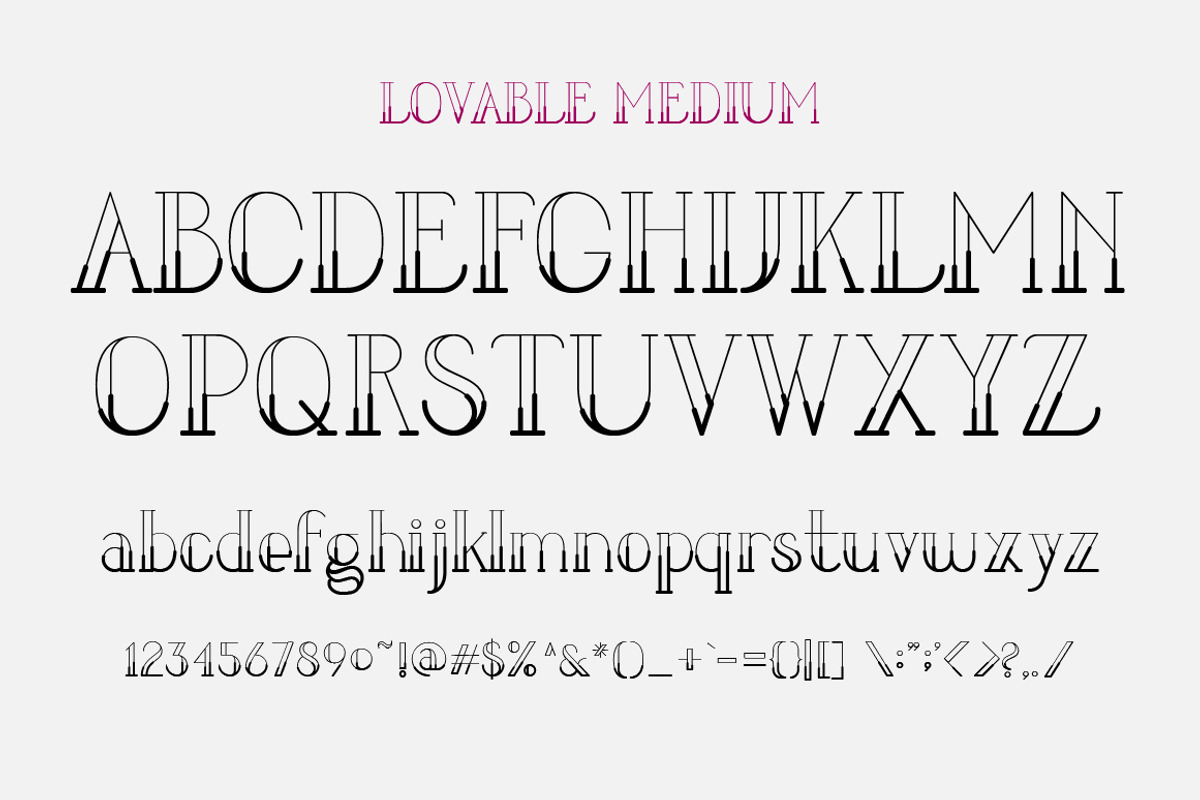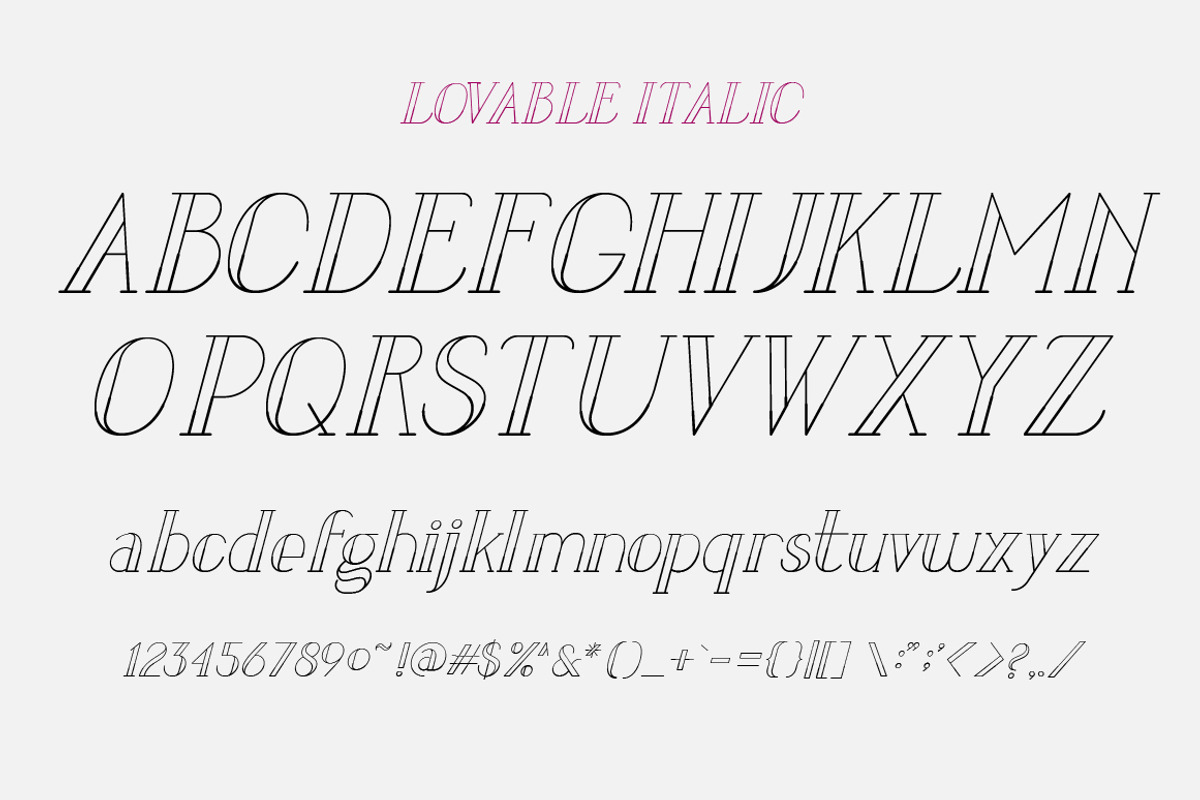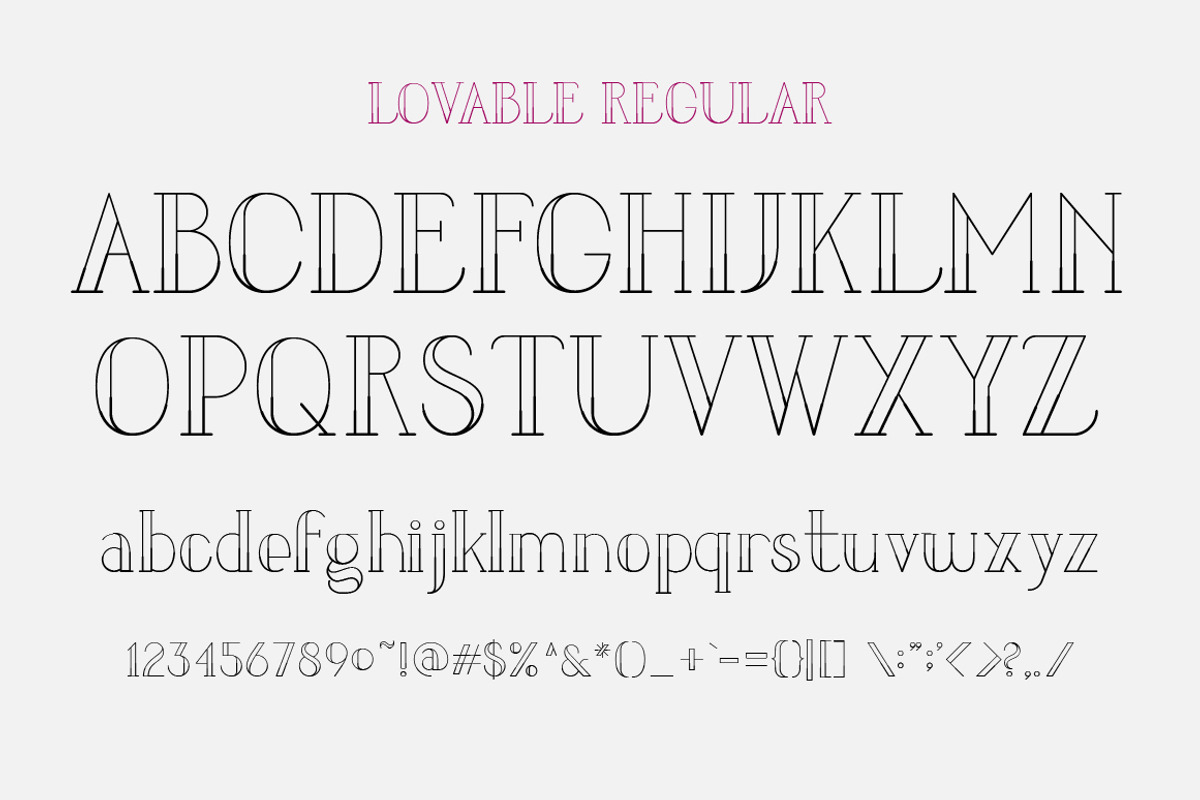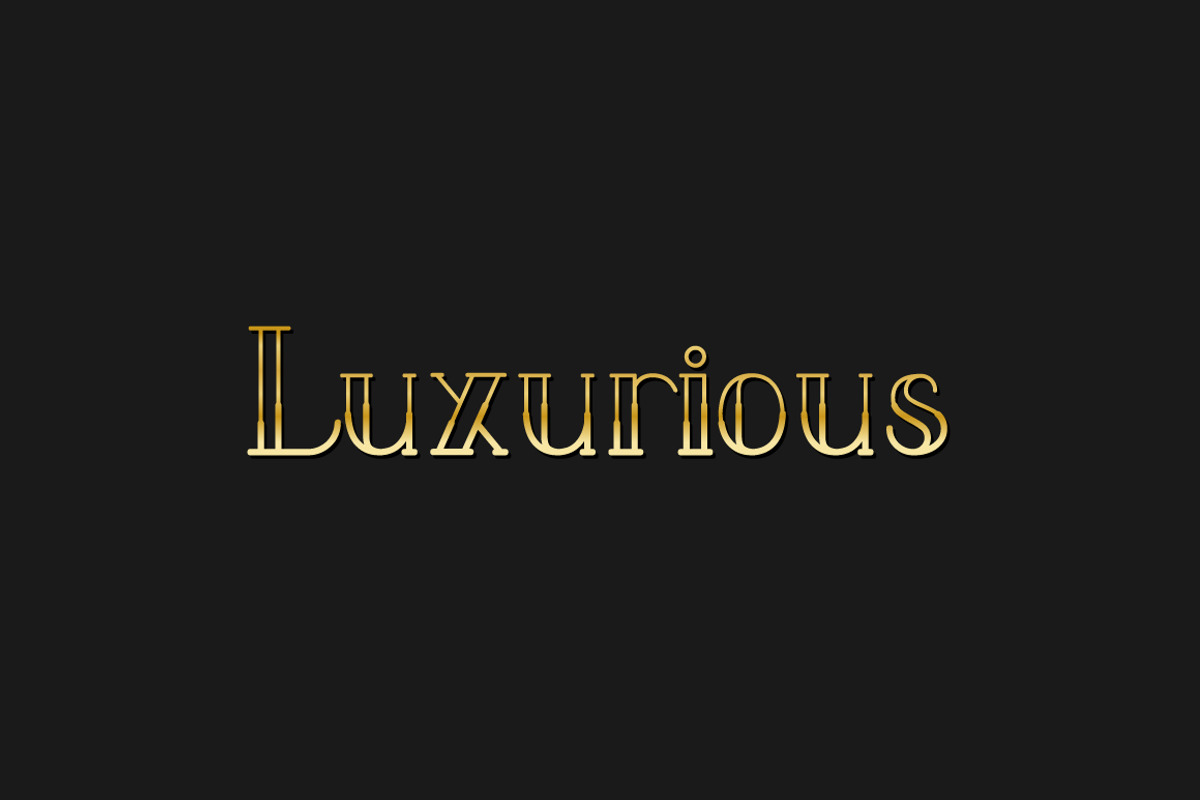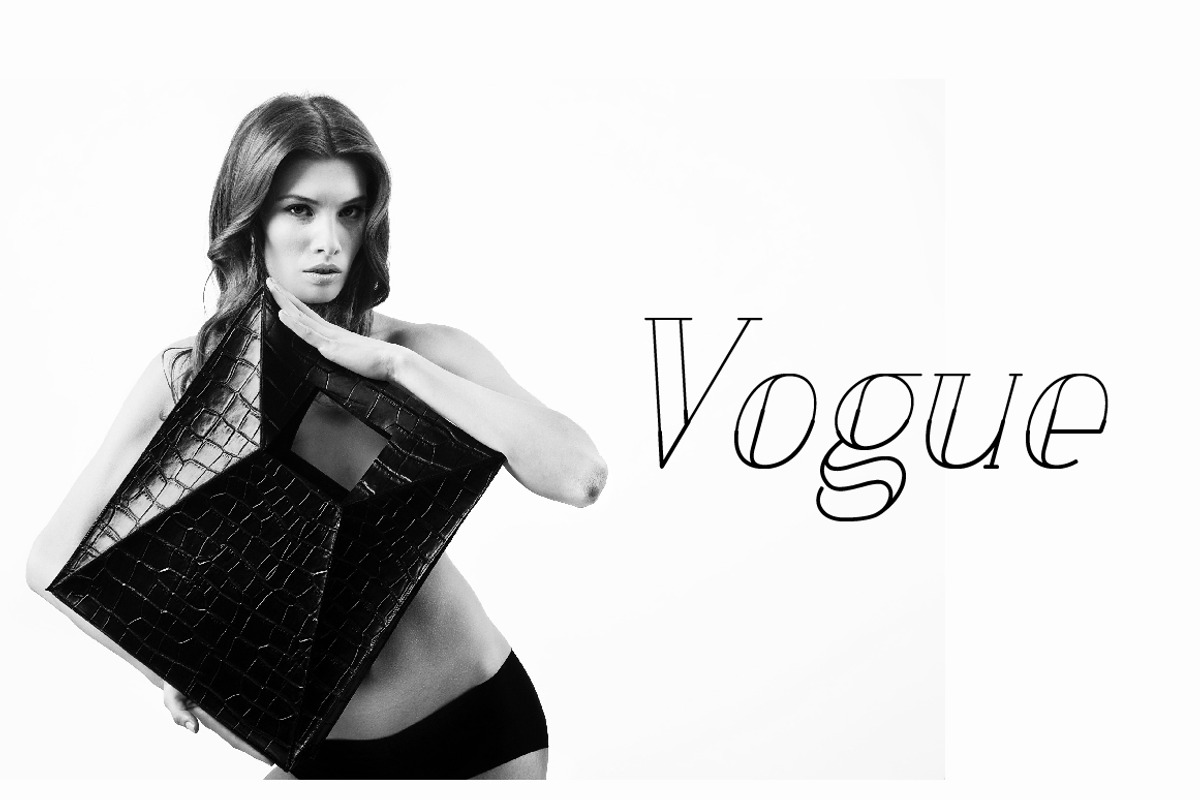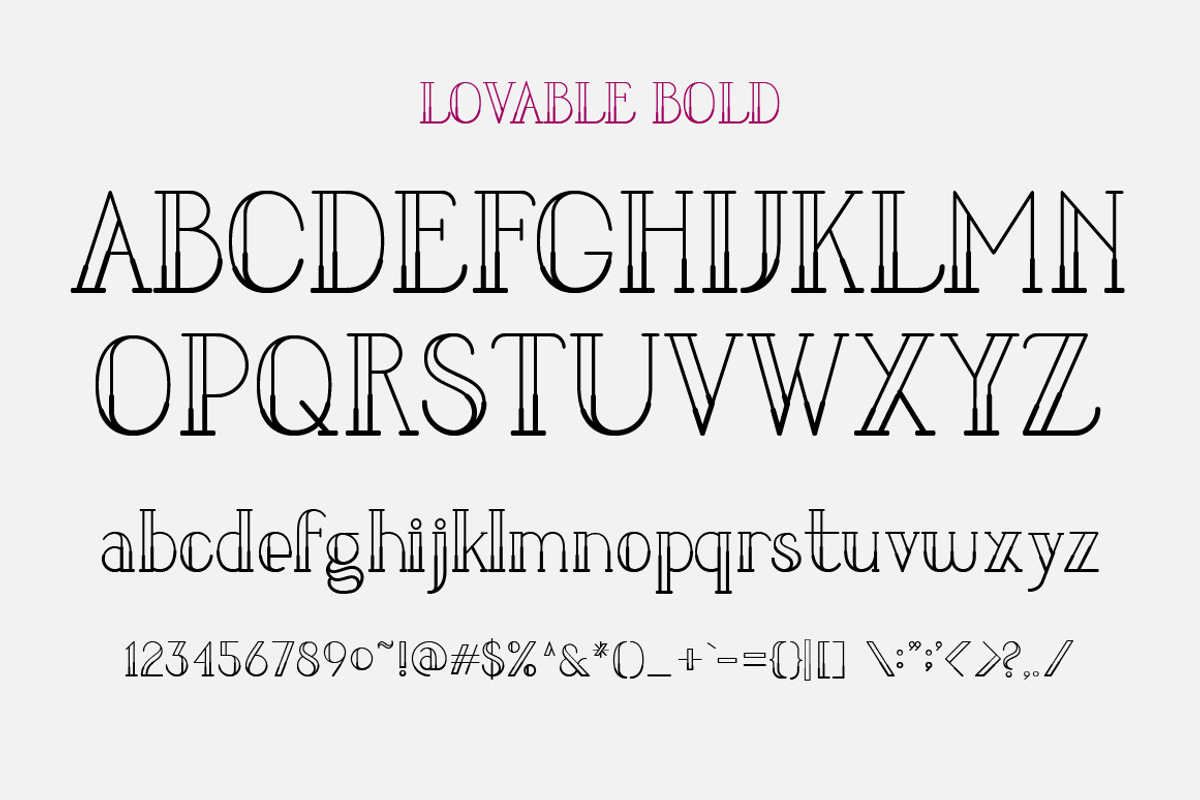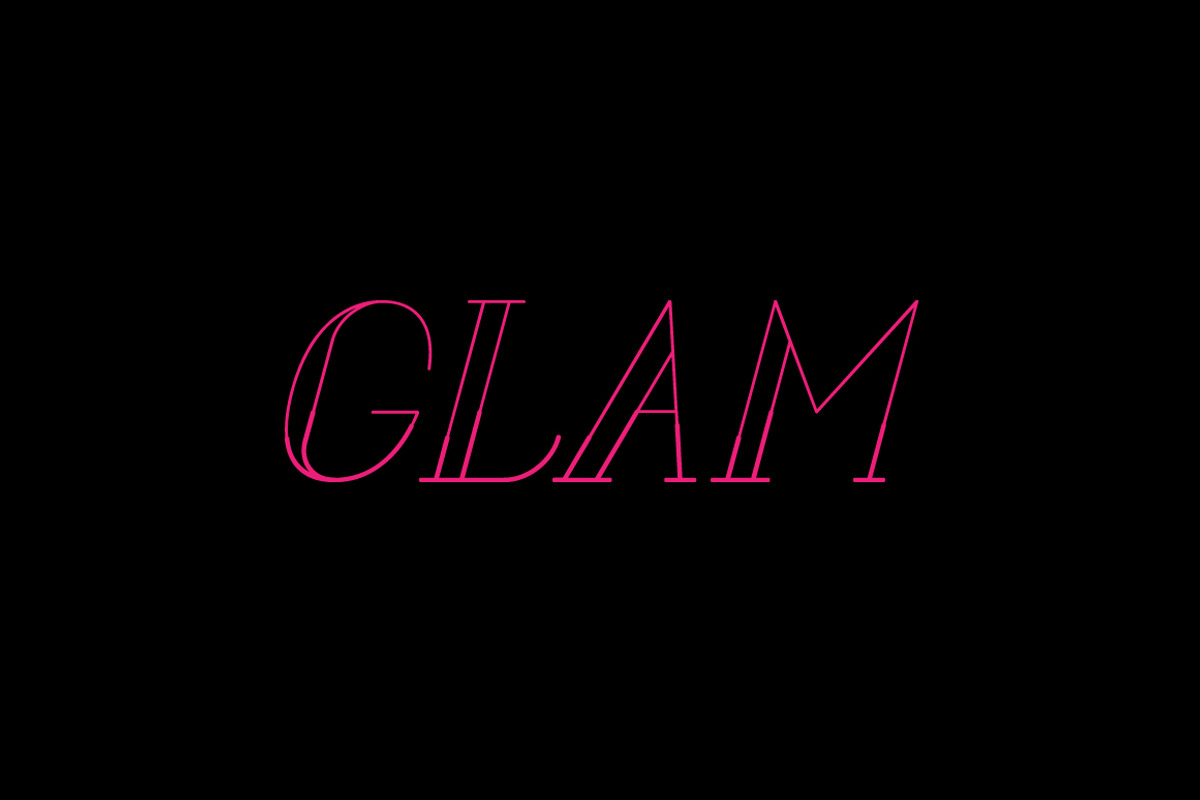
LOVABLE FONT FAMILY
LOVABLE FONT FAMILY by FSY Creative Lab is a font selected for branding, posters, packaging, typography.
Why LOVABLE FONT FAMILY is worth a look
LOVABLE FONT FAMILY by FSY Creative Lab fits naturally into Branding, posters, packaging, typography.